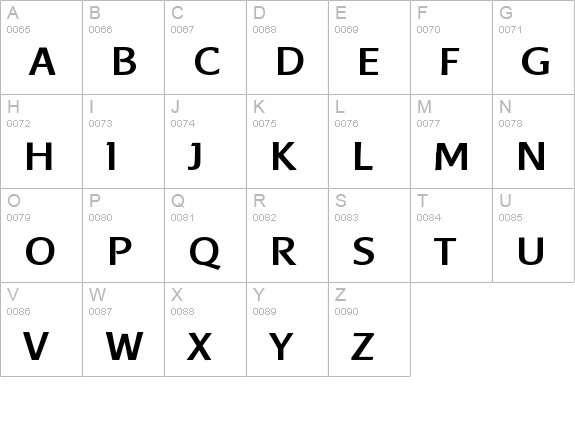
Baar Metanoia Bold is a strong, high-contrast variant in the Baar typeface family \xE2\x80\x94 well suited to headlines, attention-grabbing titles, and strong calls-to-action.
Introducing Baar Metanoia Bold Font, a captivating typeface that effortlessly combines elegance and modernity. With its bold and dynamic letterforms, this font exudes confidence and commands attention. Baar Metanoia Bold Font is the perfect choice for designs that require a strong visual impact, whether it be for branding, headlines, posters, or any project that demands a bold statement. Its unique and edgy style adds a touch of sophistication and versatility to any design. This font's design is meticulously crafted, with each character carefully balanced to create a harmonious and visually appealing composition. The bold strokes and clean lines ensure excellent legibility, even at smaller sizes, making it suitable for various applications. One of the most remarkable features of Baar Metanoia Bold Font is that it is available for free! Yes, you read that right – this exceptional font can be freely downloaded at FontsMarket.com. This means that you can add this stunning typeface to your font library without any cost, allowing you to elevate your designs without breaking the bank. Whether you are a professional designer looking to elevate your creative projects or a casual enthusiast looking to add some flair to your personal designs, Baar Metanoia Bold Font is the perfect choice. Its versatility, elegance, and affordability make it a must-have font for any designer or typography enthusiast. So why wait? Download Baar Metanoia Bold Font today from FontsMarket.com and unlock the endless possibilities that this remarkable typeface offers. Whether you are designing a logo, creating a poster, or working on any other project, Baar Metanoia Bold Font will always deliver outstanding results, leaving a lasting impression on your audience.